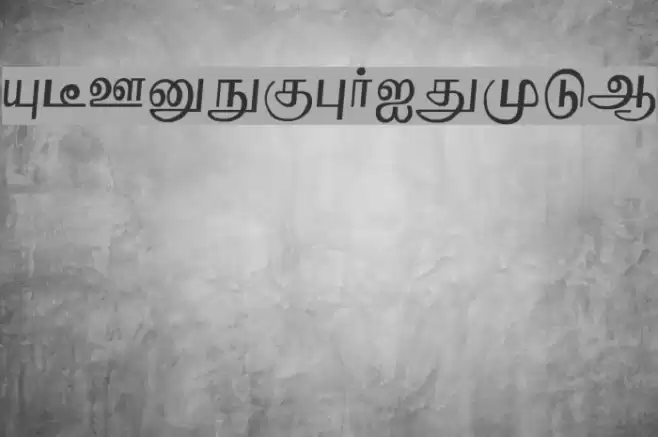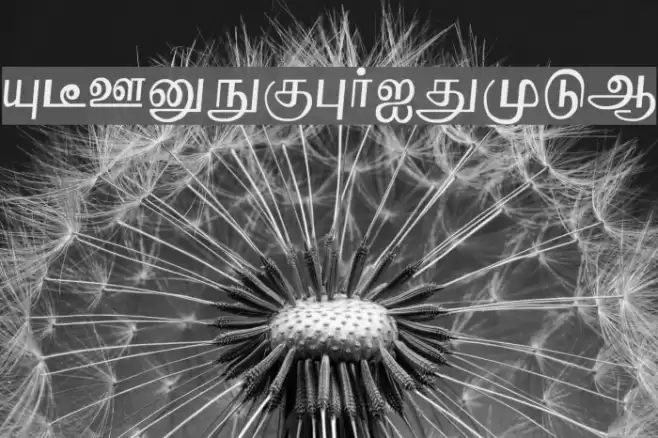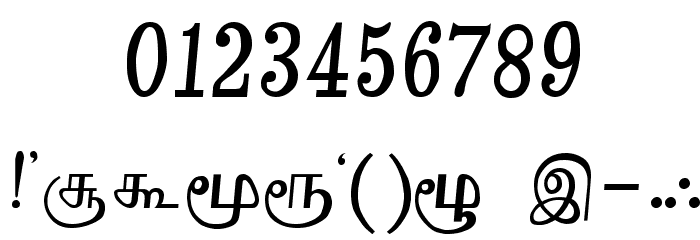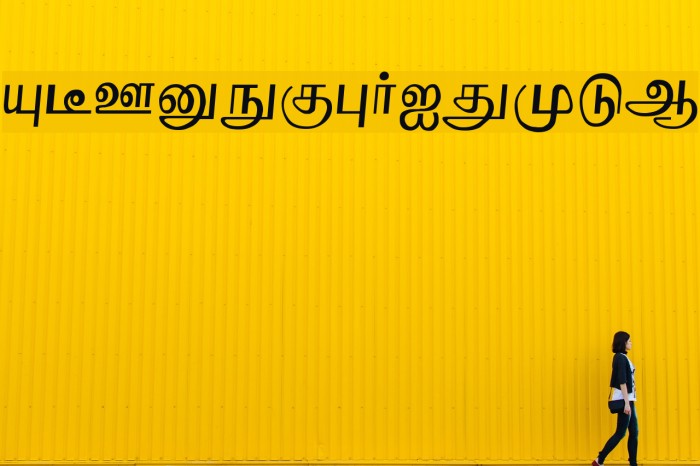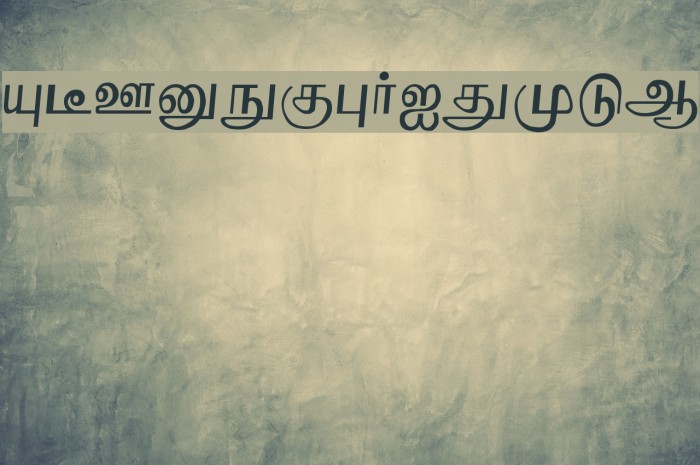
Boopalam Regular Font
Boopalam Regular Description
This font features a distinctive blend of traditional and modern elements, characterized by its elegant curves and smooth transitions. The script-like quality of the characters gives it a handwritten feel, while maintaining a level of sophistication suitable for formal contexts. The numerals are bold and clear, ensuring readability. Special characters are designed with a unique flair, adding to the font's overall charm. The spacing between characters is balanced, providing a harmonious flow in text. This font is versatile, making it suitable for a variety of design projects.
A sophisticated script-like font with elegant curves and balanced spacing from Uncategorized fonts.
- Proposed Projects: Ideal for wedding invitations, formal announcements, branding, and editorial design.
- Overall Style: Classic
- Use Case: Headlines, Invitations, Branding